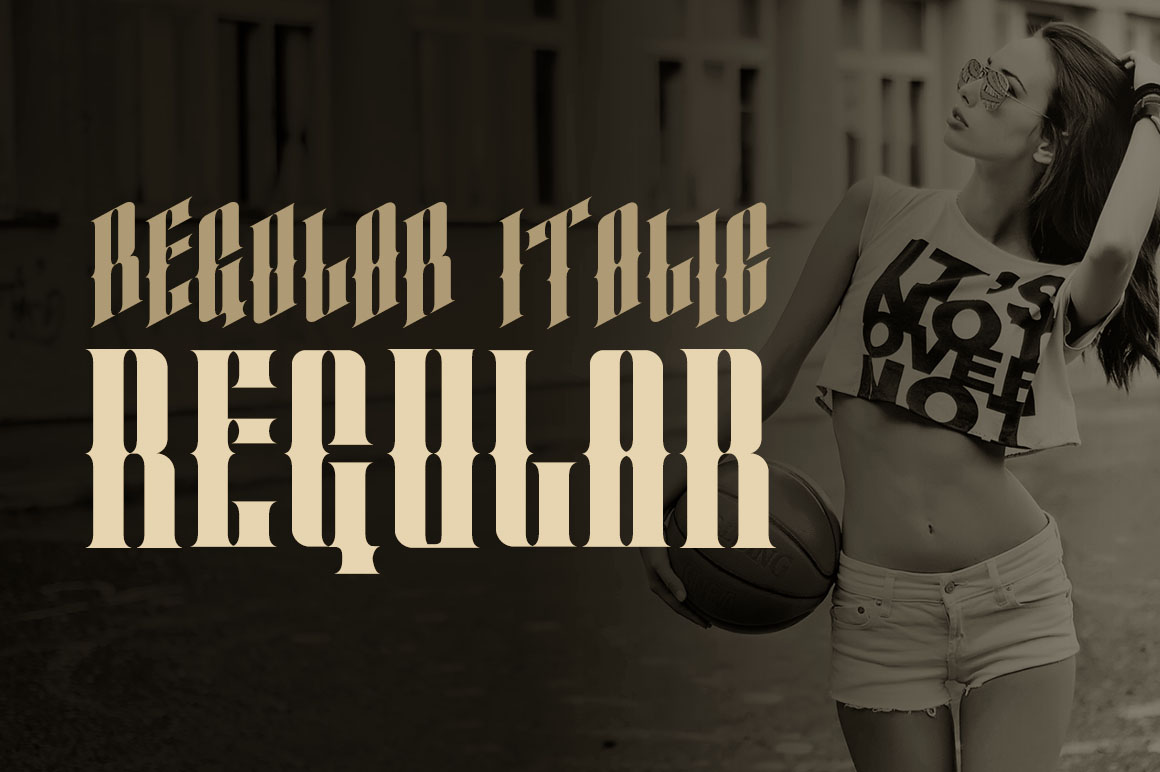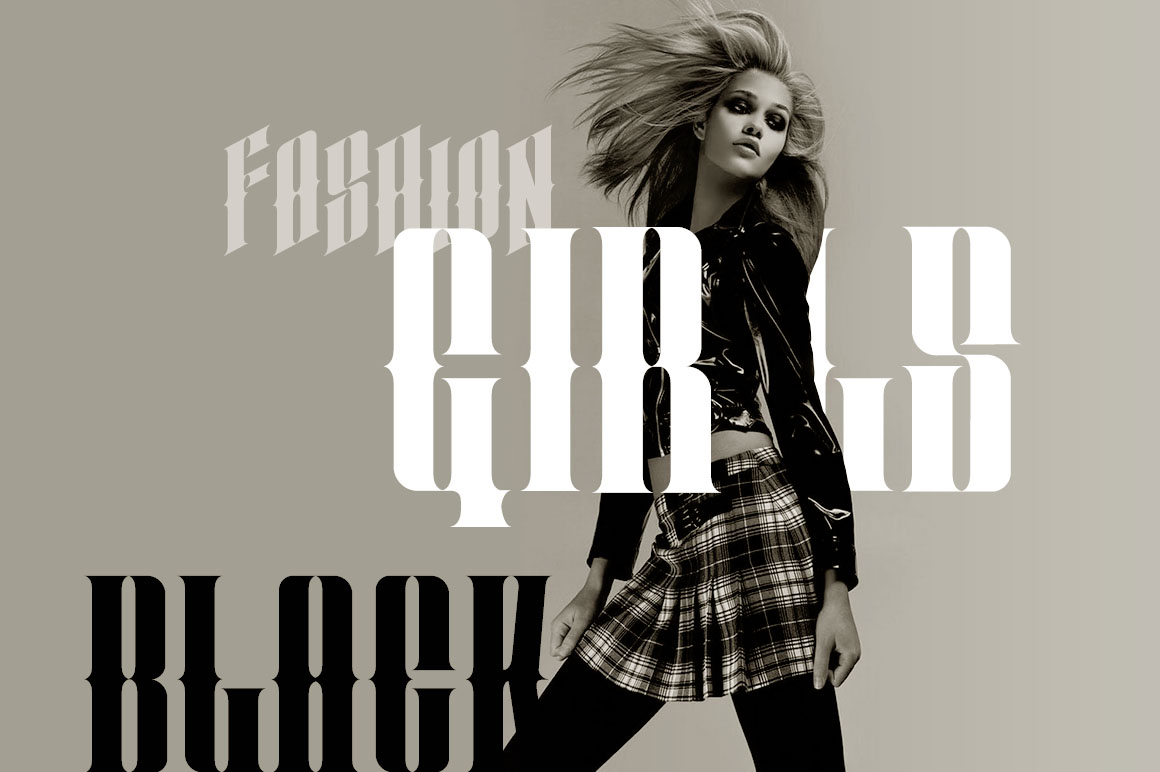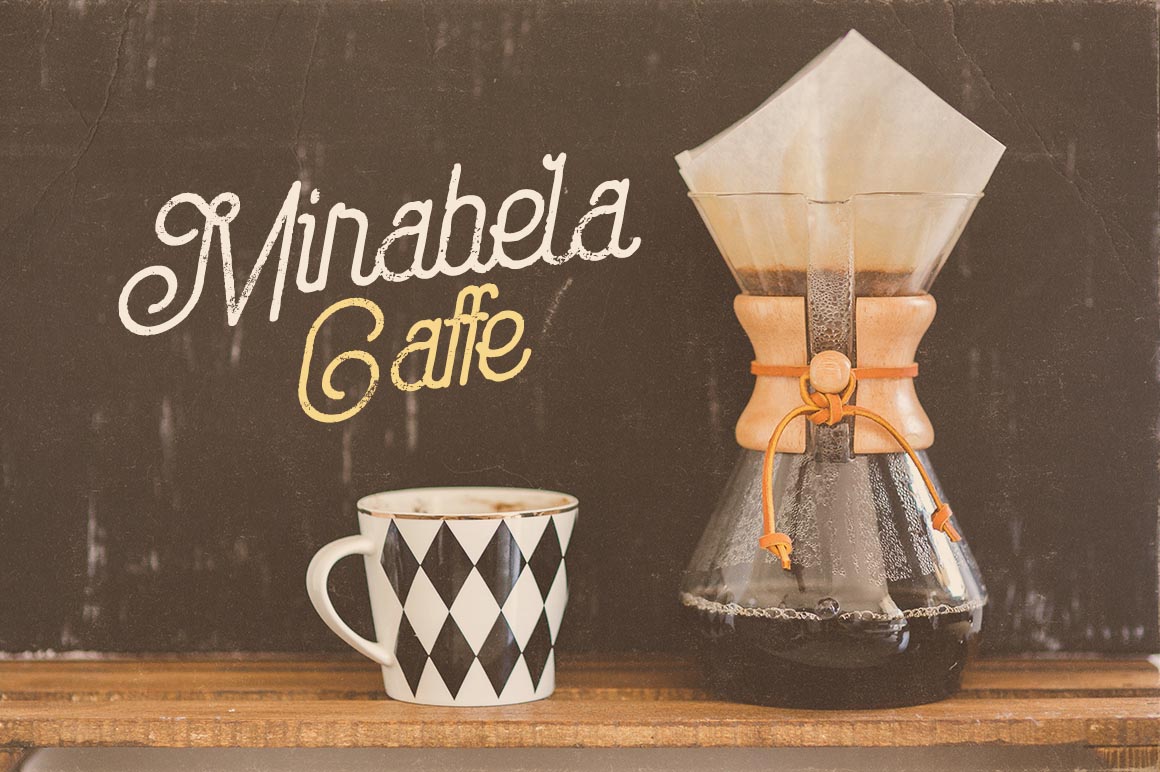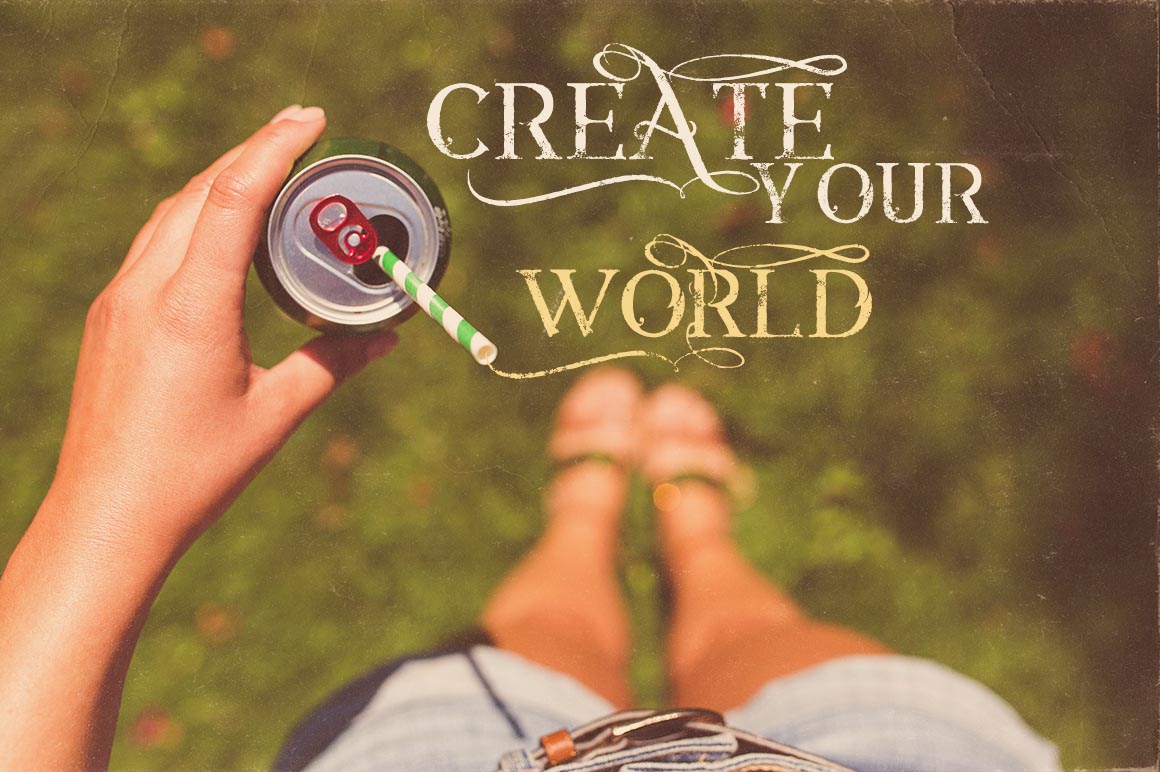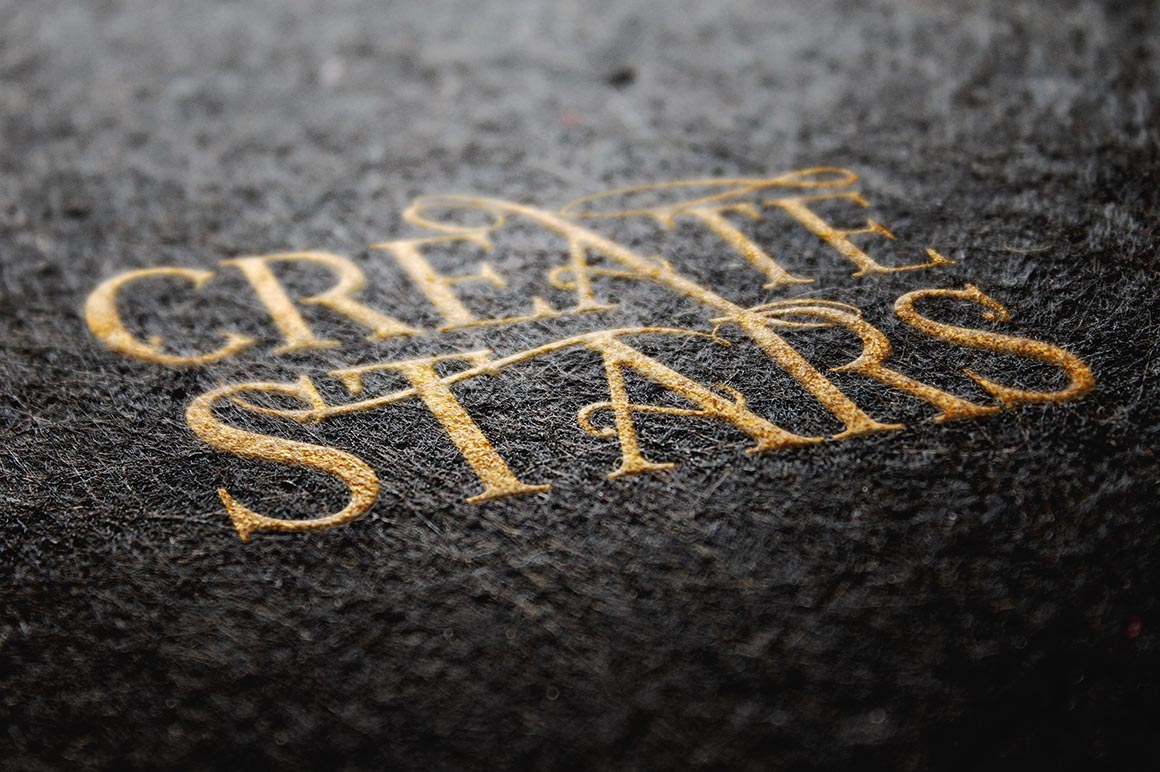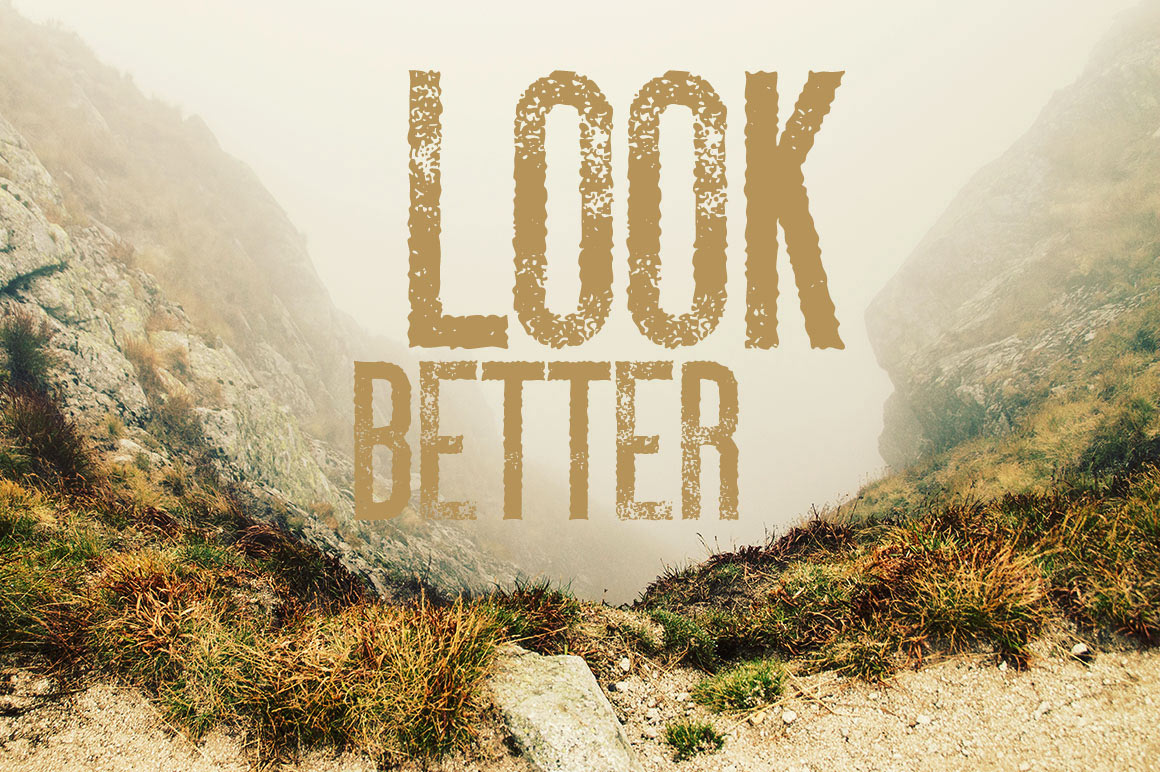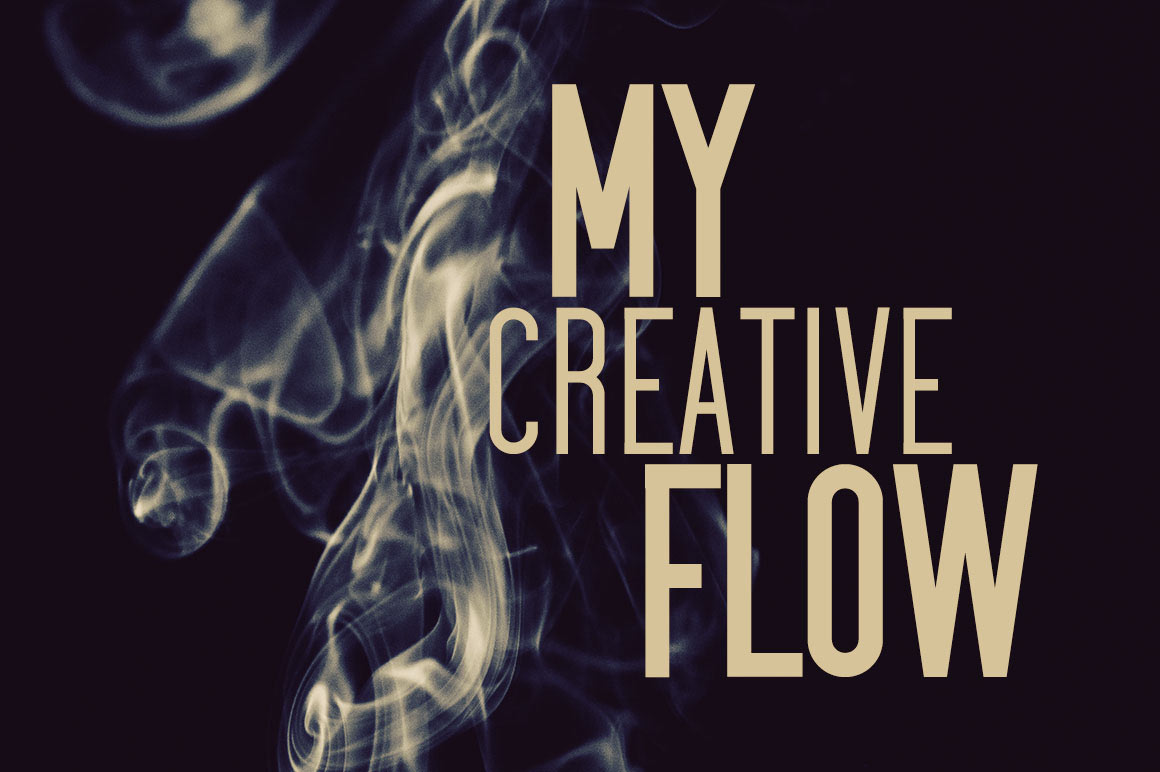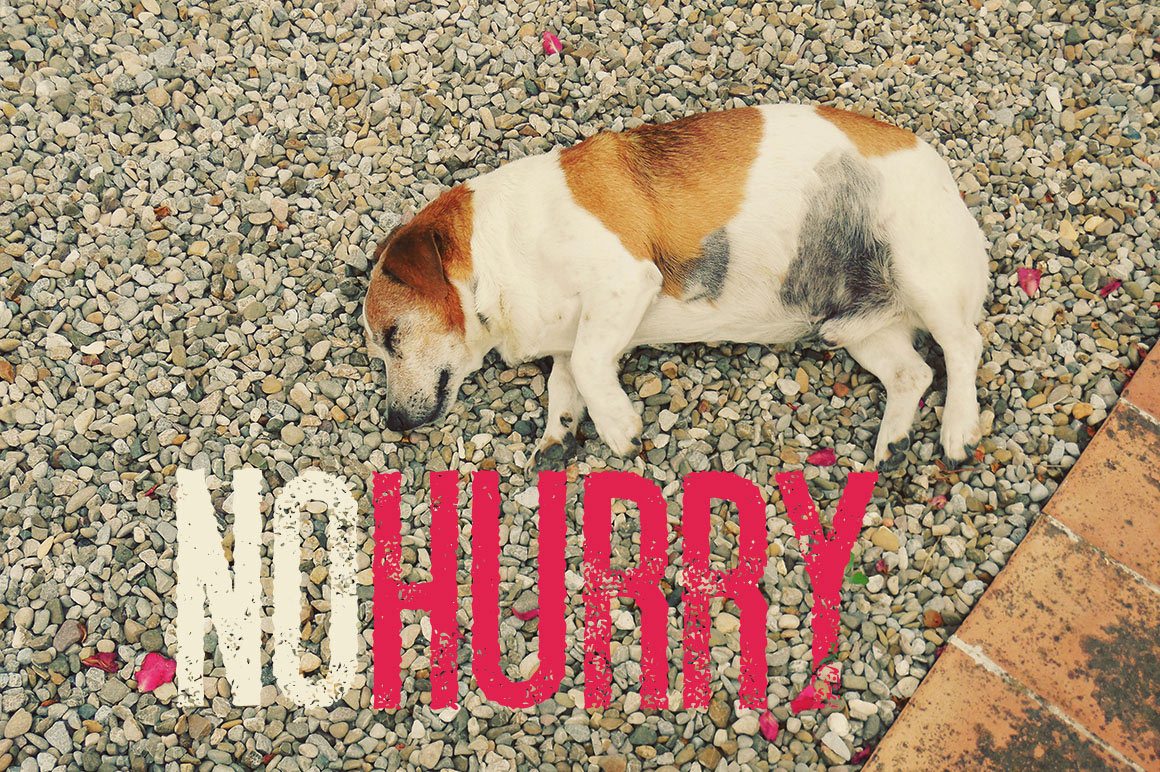
1. Capella Typeface by Cruzine Design
Cool script font for your new projects. Great for modern but also for retro/vintage projects! 4 font files (otf & ttf) – regular, grunge & regular version2, grunge version2.
2. Jibril – Vintage Style Font by Jumbo Design
Unique vintage style custom font with 2 styles: regular and grunge. TTF, OTF formats.
3. Atara – Vintage Style Font by Jumbo Design
Unique vintage style custom font with 2 styles: regular and grunge. TTF, OTF formats.
4. Anabel Font by Cruzine Design
Cool vintage style font for your new projects. Great for modern but also for retro/vintage projects! 4 font files (otf & ttf) – regular, grunge & regular1, grunge1.
5. Sailor Font by Cruzine Design
Cool font for your new projects. Great for modern but also for retro/vintage projects! 3 font files (otf & ttf) – regular, bold, grunge.
6. Rolla by Jumbo Design
Creative geometric style custom font with 2 styles: regular and grunge. TTF, OTF format and vector (ai) & rectangle logo/badge template (ai, eps and psd files).
7. SpeedHunter Font by Jumbo Design
Creative font with 2 styles: regular and grunge, TTF, OTF format and vector (ai), 4 logo/badge templates (ai, eps and psd files), 4 grunge textures (color and black versions).
8. Regolith Typeface by Cruzine Design
Creative grunge or brush typeface with: 3 font files (otf & ttf) – (vector lettering in AI), 32 transparent PNG shapes, 24 grunge hi-res textures.
9. Chocoleta Typeface by Cruzine Design
Creative brush typeface with: 3 font files (otf & ttf) – (vector lettering in AI & EPS files), transparent PNG shapes (also in AI & EPS files), 10 grunge hi-res textures.
10. SquareSpace Font by Jumbo Design
Creative geometric style custom font with 2 styles: regular and grunge, TTF, OTF format and vector (ai), 4 logo/badge templates (ai, eps and psd files).
11. Ultimatum Font by Cruzine Design
Clean font for your new projects. Great for modern but also for retro/vintage projects! 3 font files (otf & ttf) – regular, bold, grunge.
12. Almanac Font by Jumbo Design
Creative modern and also grunge style custom font with 4 styles: regular, regular italic, grunge and grunge italic, TTF, OTF formats.